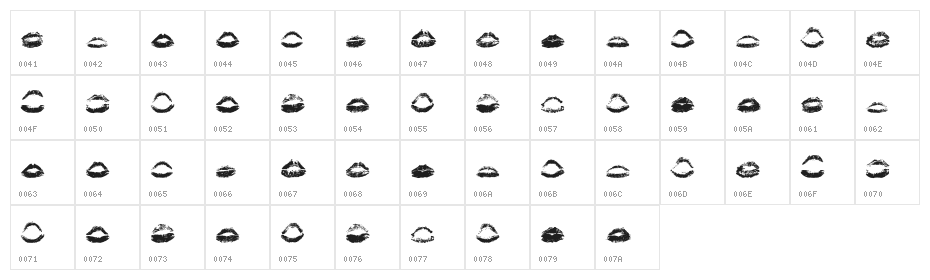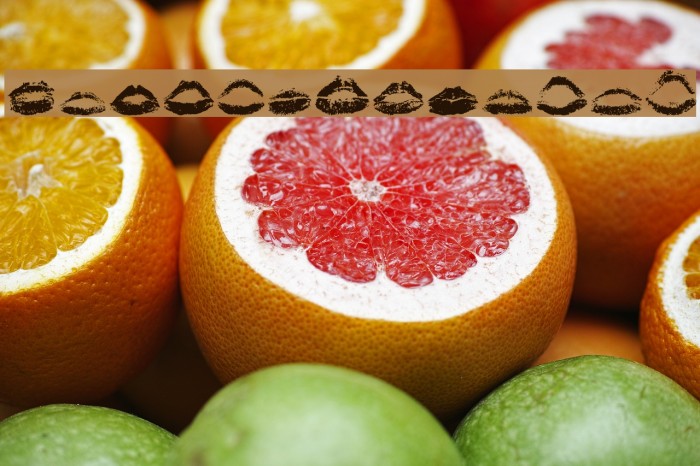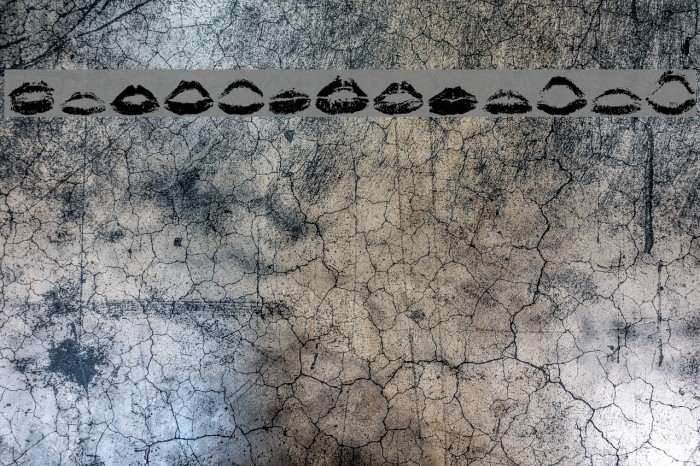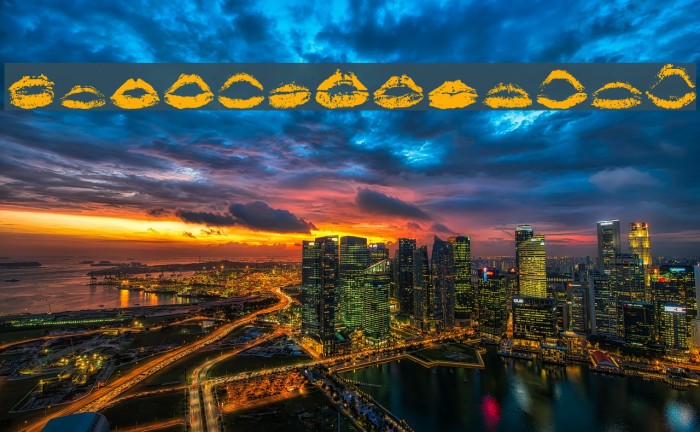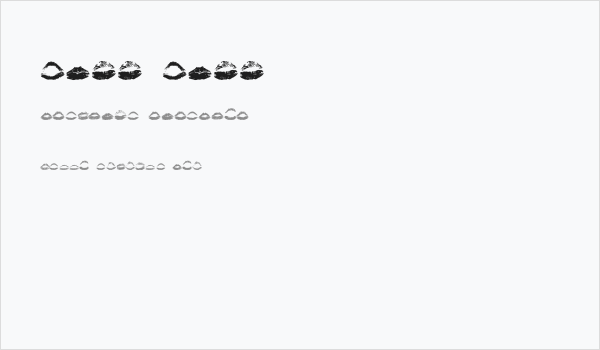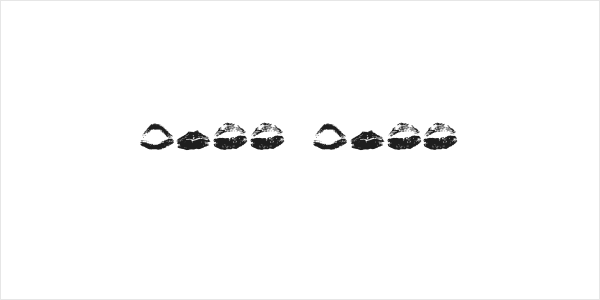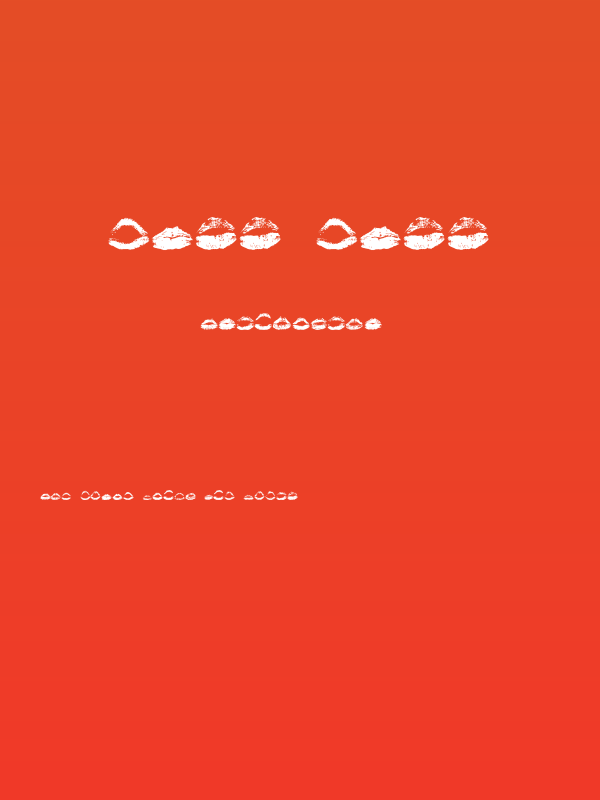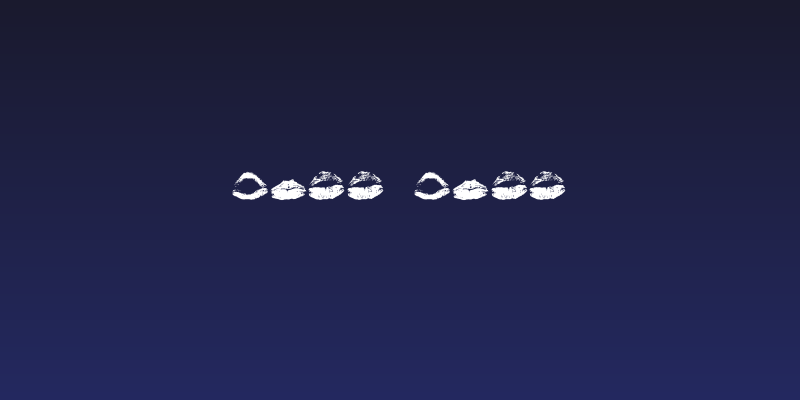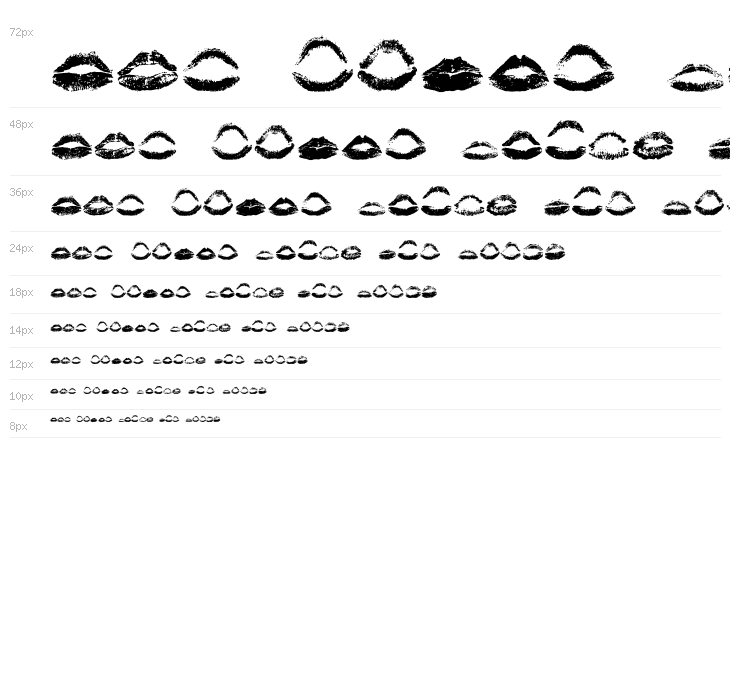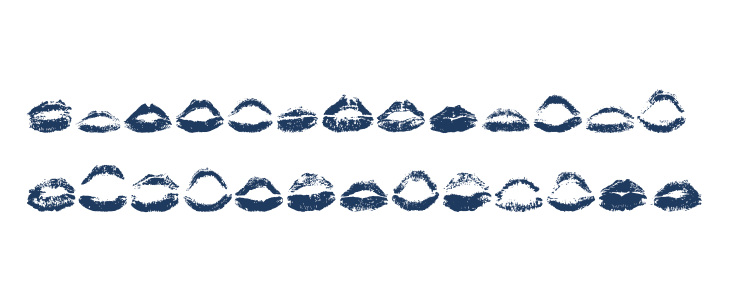
Kiss Kiss Font
Kiss Kiss Description
This unique and playful design features a series of lip prints arranged to represent letters and numbers. Each character is creatively formed by varying the shape and shading of the lips, giving the font a distinct and artistic appearance. The bold and textured style of the lip prints adds a sense of fun and whimsy, making it stand out as a decorative element. The characters are well-defined, yet maintain an organic feel due to the natural variations in the lip prints. This font is perfect for projects that require a touch of creativity and personality, such as fashion branding, playful invitations, or artistic posters.
| Overall Style | Artistic, Playful, Creative |
| Use Case | Logos, Posters, Invitations |
| Proposed Projects | Ideal for fashion branding, playful invitations, artistic posters, and creative marketing materials. |